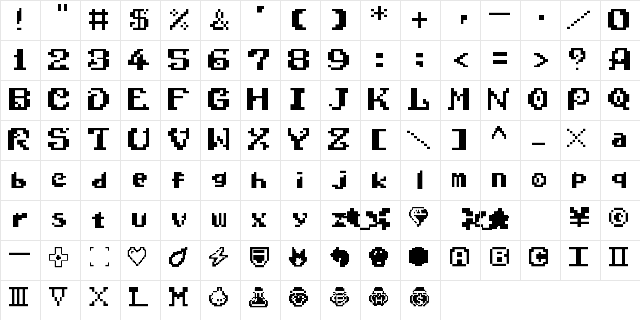
Complete Wonder Boy In Monster World Regular glyph index. Displaying only characters natively supported by Wonder Boy In Monster World Regular font.
Wonder Boy In Monster World is a composed and adaptable typeface that performs quietly and consistently across a wide range of design contexts.